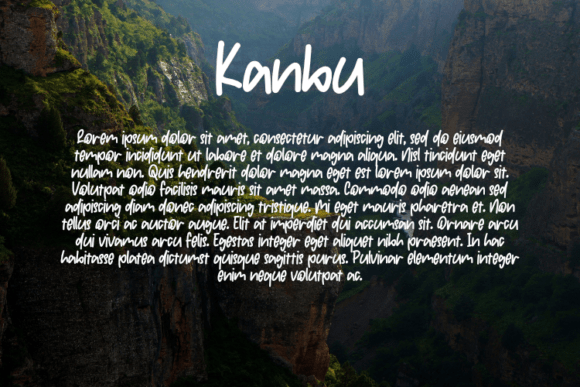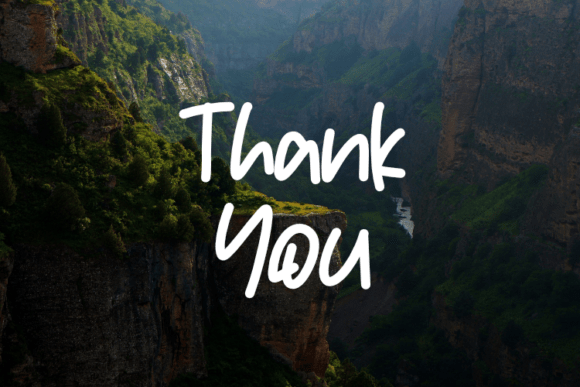
Introduction to Kanbu Font
Introduction Kanbu is a modern and elegant typeface designed for flexibility and excellent readability across a wide range of media.
Key Features of Kanbu Font
Why Choose Kanbu Font?
Kanbu Font offers exceptional quality and versatility, making it a valuable addition to your design toolkit. Whether you’re creating for personal projects or commercial use, Kanbu Font delivers professional results.